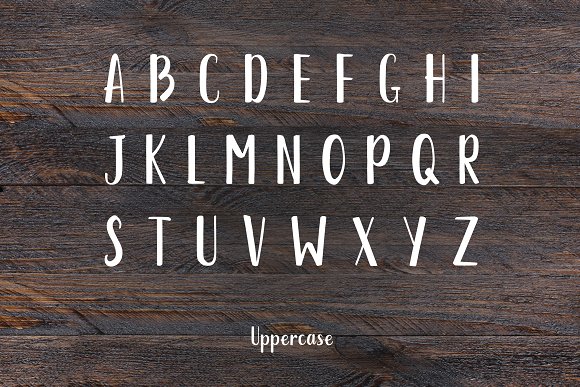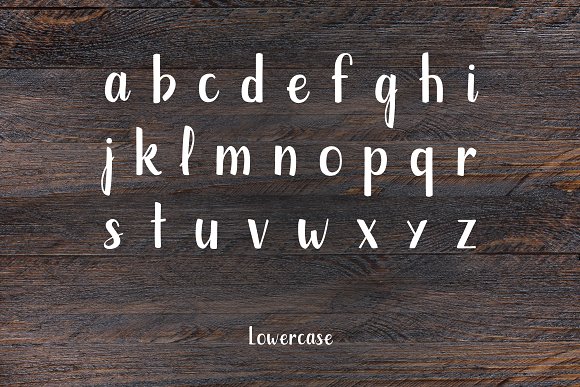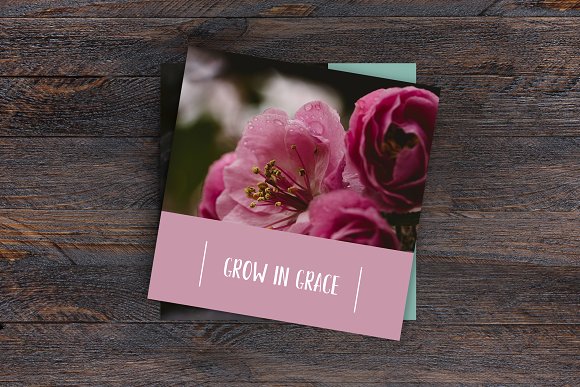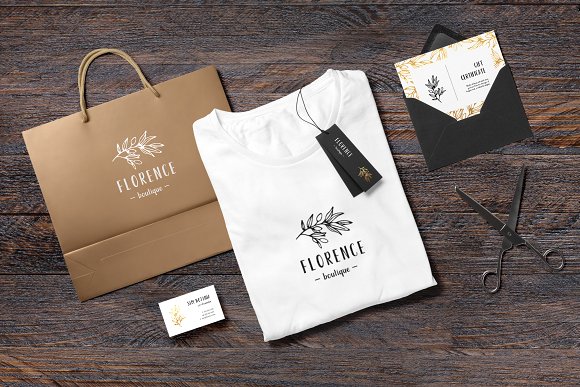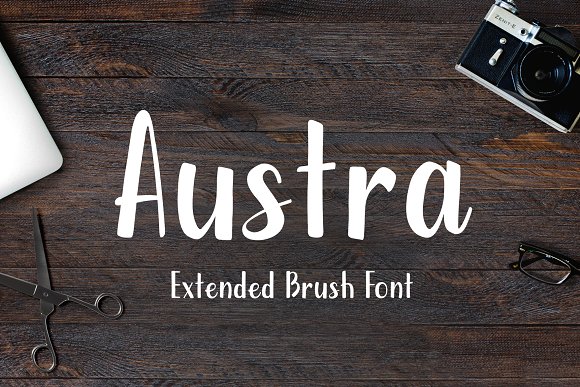
Austra Extended Brush Font
Austra Extended Brush Font is a geometric brush font with a strong construction underneath. It works well for short descriptions, logo and brand identity designs, packaging, headlines, etc.
Uppercase and lowercase letters, numbers, symbols and extended characters included.